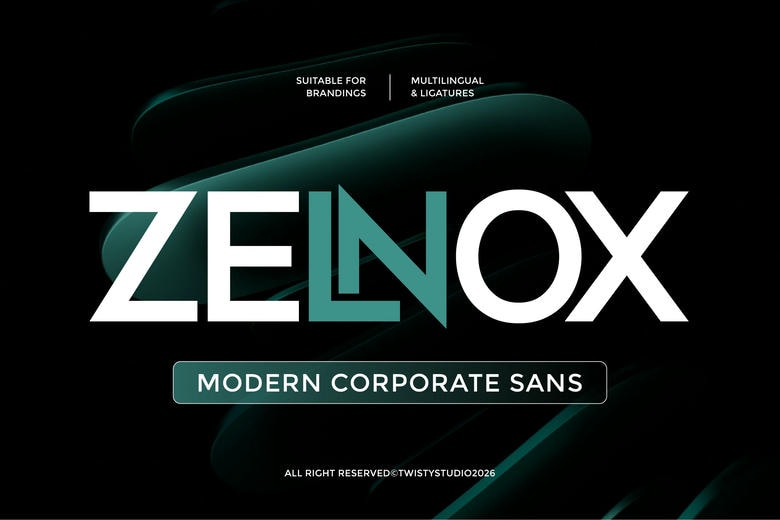
Zelnox Font
Zelnox is a modern sans-serif font made for business and branding. Its clean letterforms, balanced proportions, and refined structure help create a professional and sophisticated look.
Zelnox gives your brand a modern and trustworthy look. Its minimalist design makes it easy to read while still looking polished and professional.
Zelnox Sans Serif Font